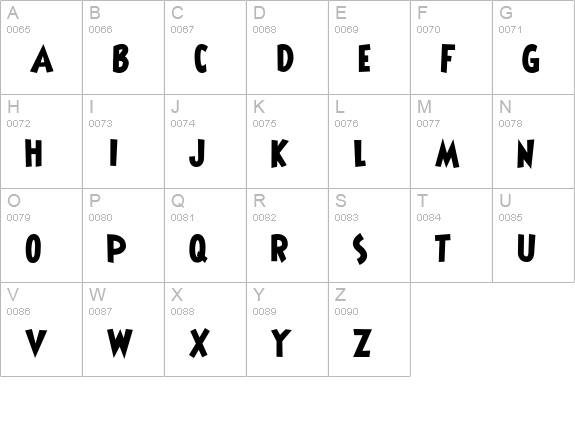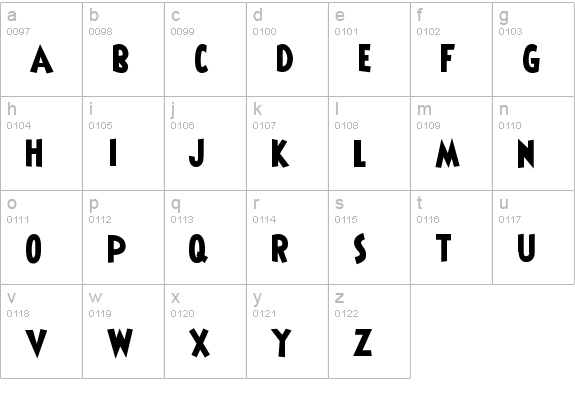
ShermlockSolid Font Details
ShermlockSolid font is a magnificent display typeface that exudes elegance and sophistication. With its bold and solid letterforms, it commands attention and adds a touch of professionalism to any design project. This font is designed with utmost precision and attention to detail, resulting in a clean and sleek appearance. Each letter is carefully crafted to create a harmonious balance between thick and thin strokes, giving the font a unique and distinctive personality. One of the standout features of ShermlockSolid font is its versatility. It can be used for a wide range of purposes, including logos, headlines, posters, and branding materials. Its bold and solid nature makes it ideal for making a strong statement and leaving a lasting impression. What makes ShermlockSolid font even more appealing is that it is available for free download at FontsMarket.com. You can easily access and enjoy this beautiful font without any cost or restrictions. This makes it an excellent choice for designers who are looking for high-quality fonts without breaking the bank. Whether you are a professional designer or just someone who appreciates beautiful typography, ShermlockSolid font is a must-have in your collection. Its timeless appeal, impeccable design, and the fact that it is freely available make it a true gem in the world of typography. So, why wait? Download ShermlockSolid font today and elevate your designs to new heights.